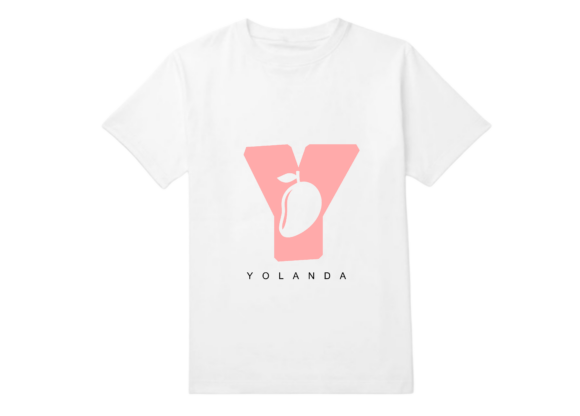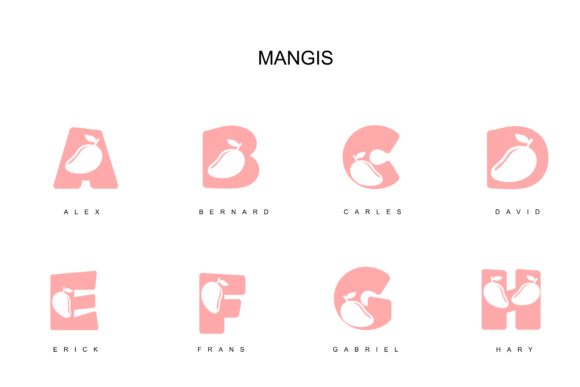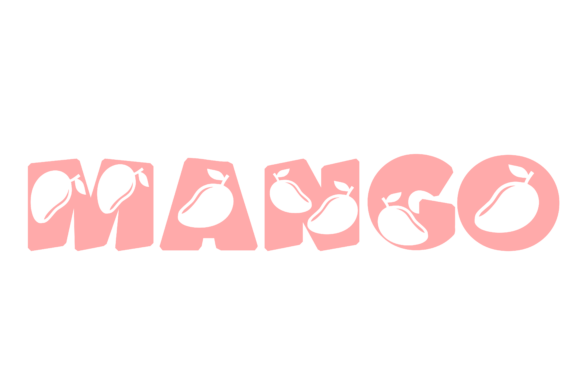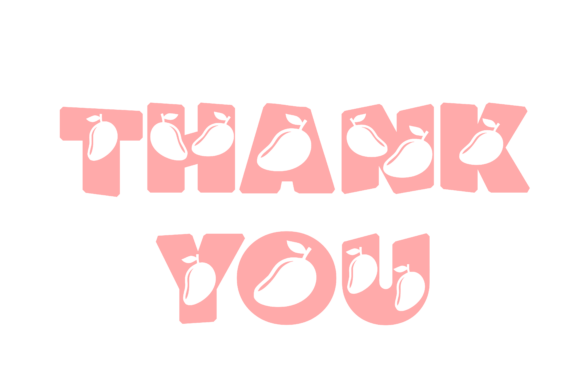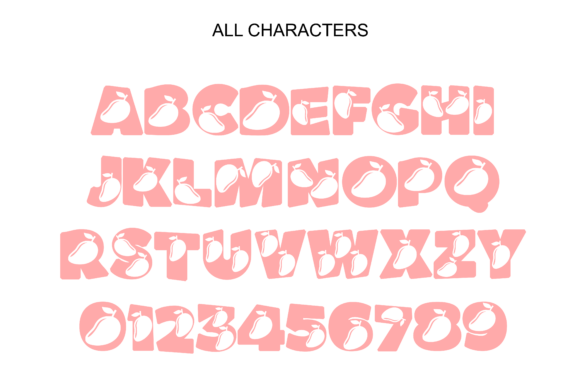
Introduction to Mangis Font
Immerse yourself in the captivating charm of Mangis, a font that echoes the whimsy and delight found within a child’s imagination.
Steeped in the invigorating essence of youthful innovation, Mangis skilfully combines hypnotic glyphs and compelling alphabets in a stunning, lyrical display of characters Honed with accuracy and a painstaking passion for detail, Mangis stands as an ideal medium for a spectrum of artistic pursuits.